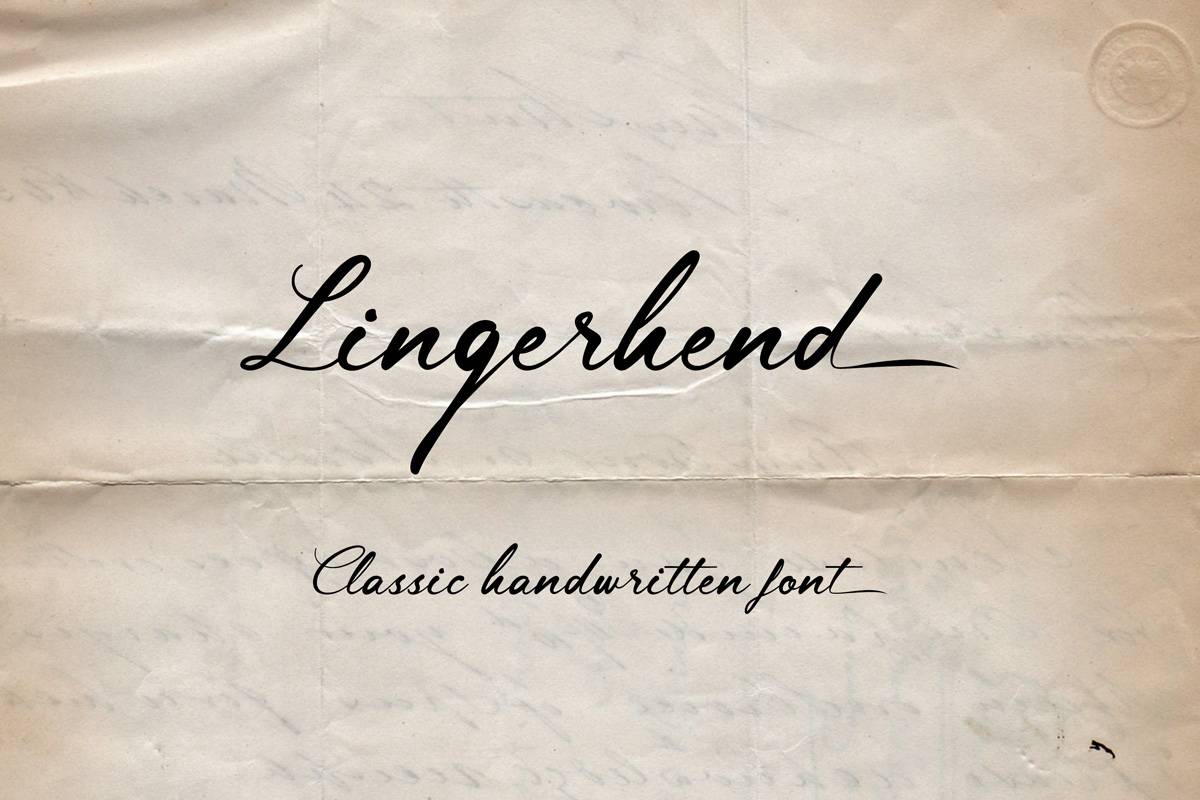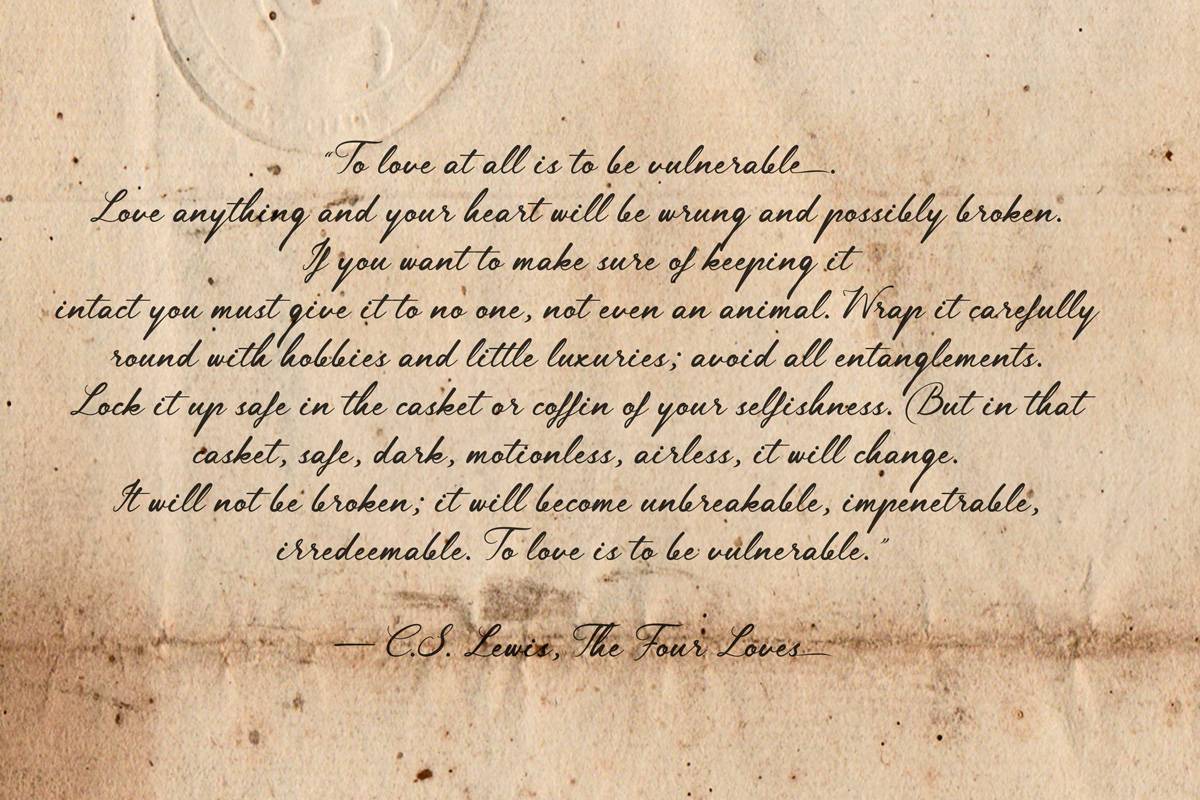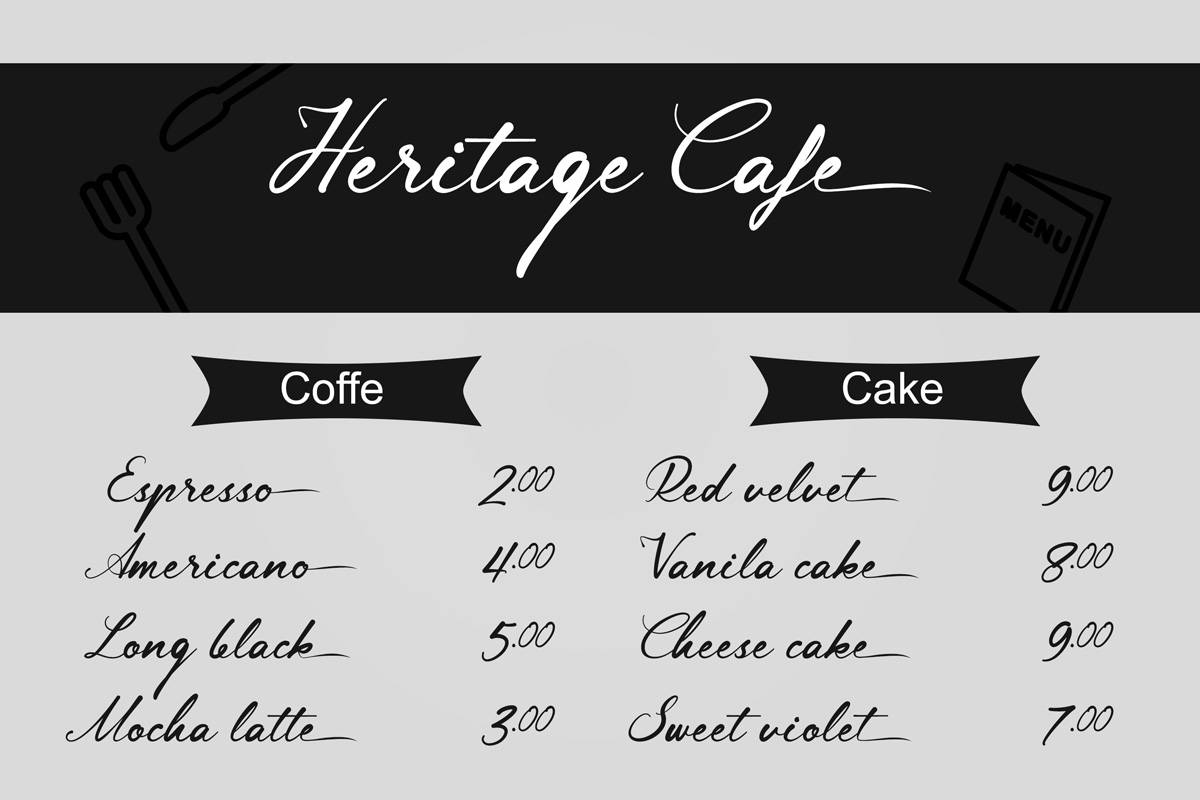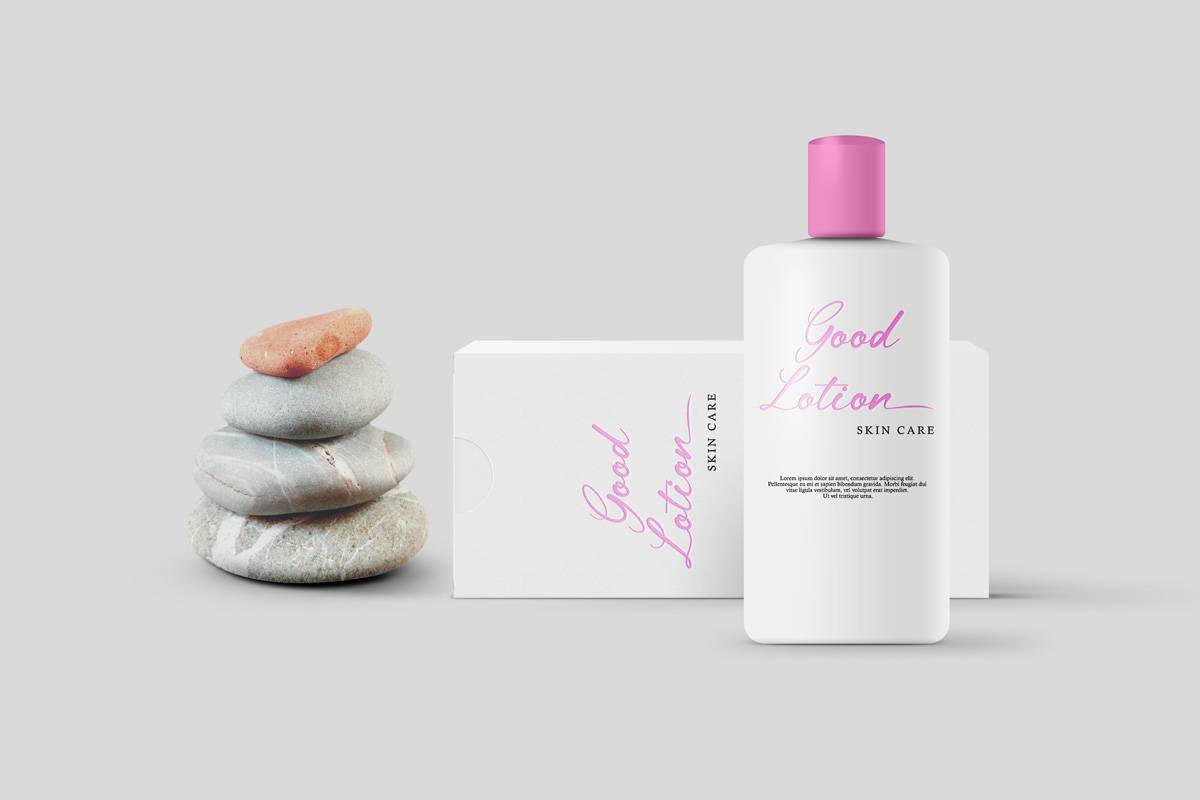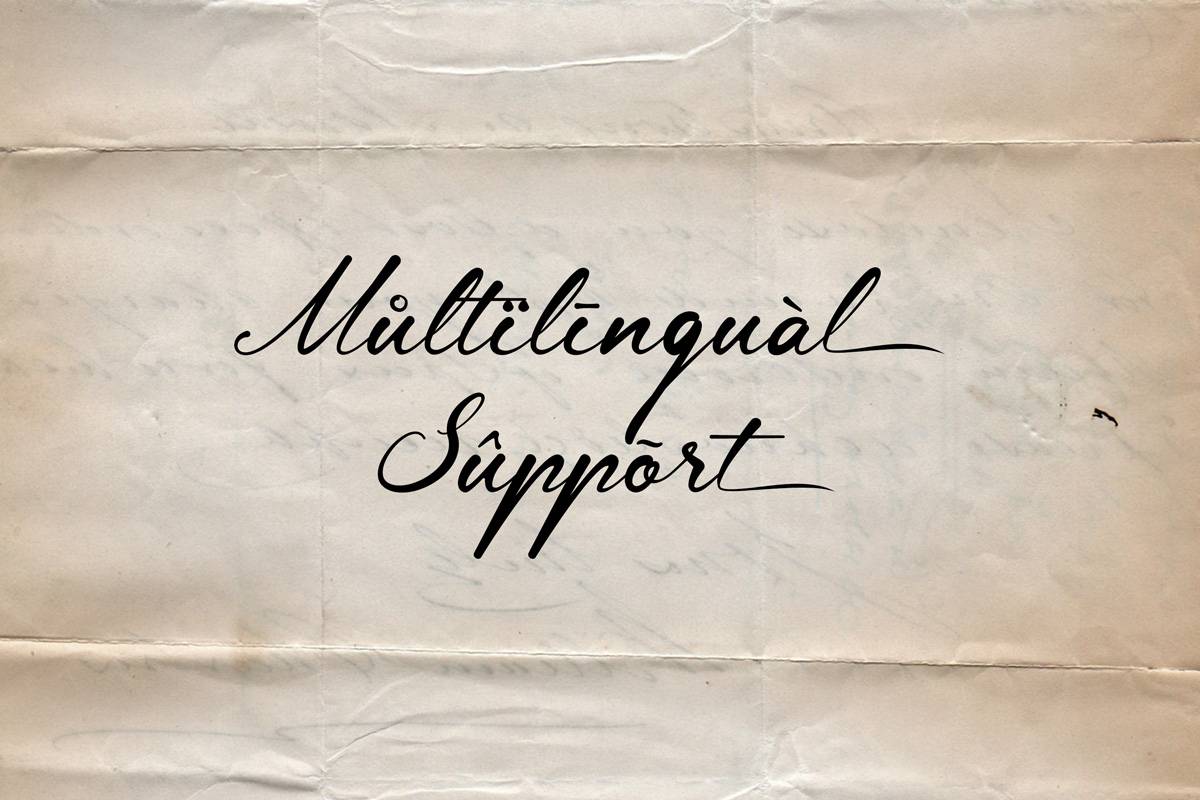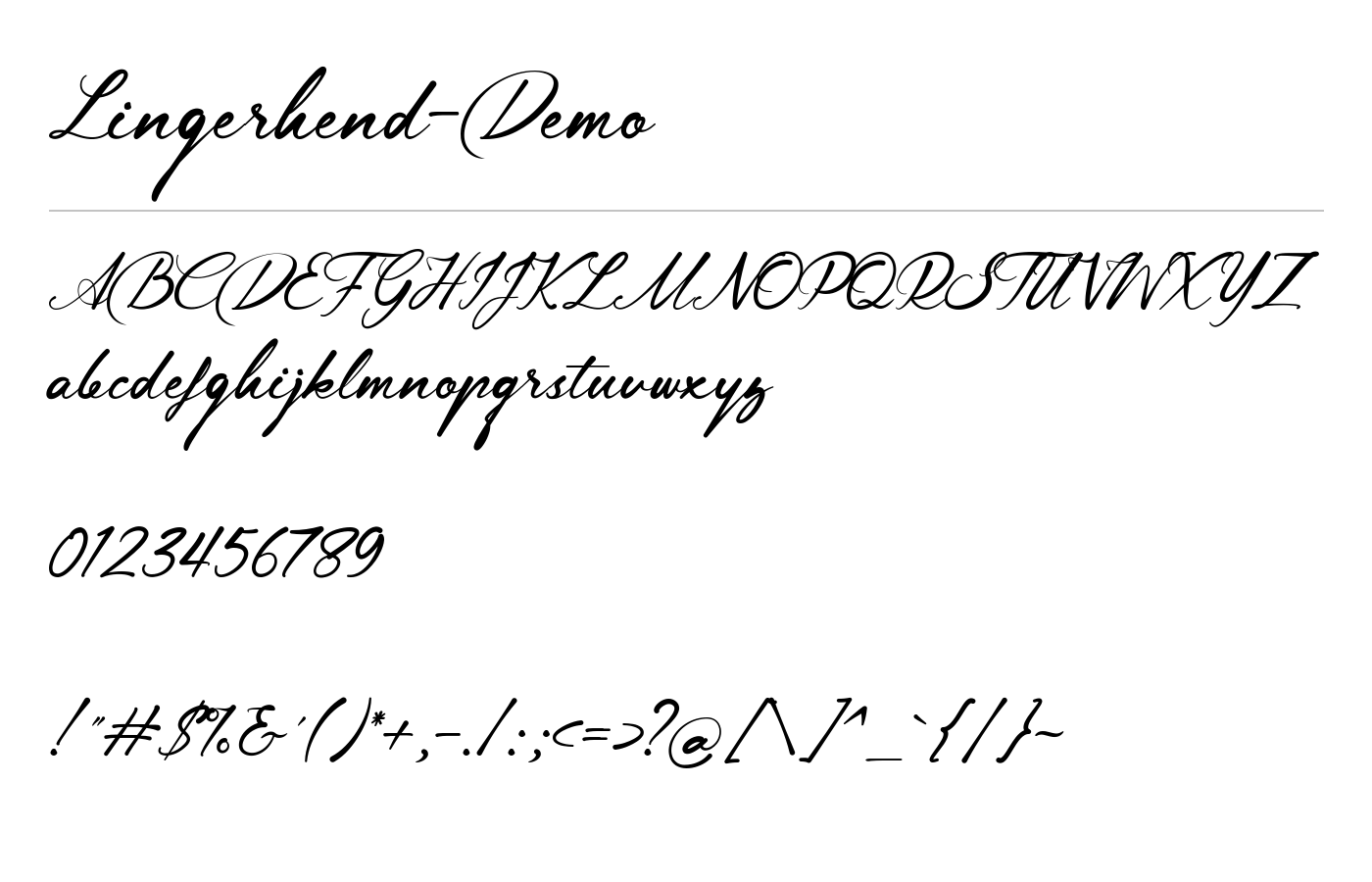
Lingerhend is an elegant script font with a refined, flowing style that captures the grace of hand lettering. Its slender, slightly varied strokes and smooth curves give it a sophisticated and personal touch, making it ideal for invitations, branding, and any design seeking a touch of classic charm and warmth. This font works wonderfully in luxury and creative contexts where elegance and readability blend seamlessly.
Lingerhend
About Lingerhend
| Font family | Lingerhend |
| Designer | Lemonthe_Dwi Ahidian |